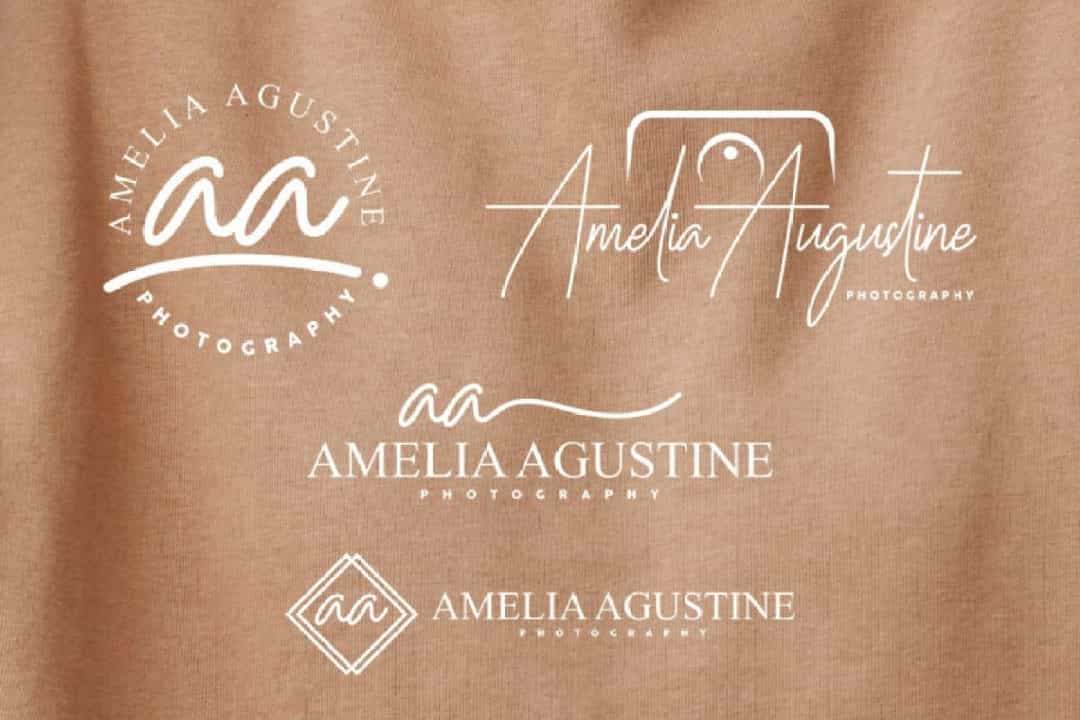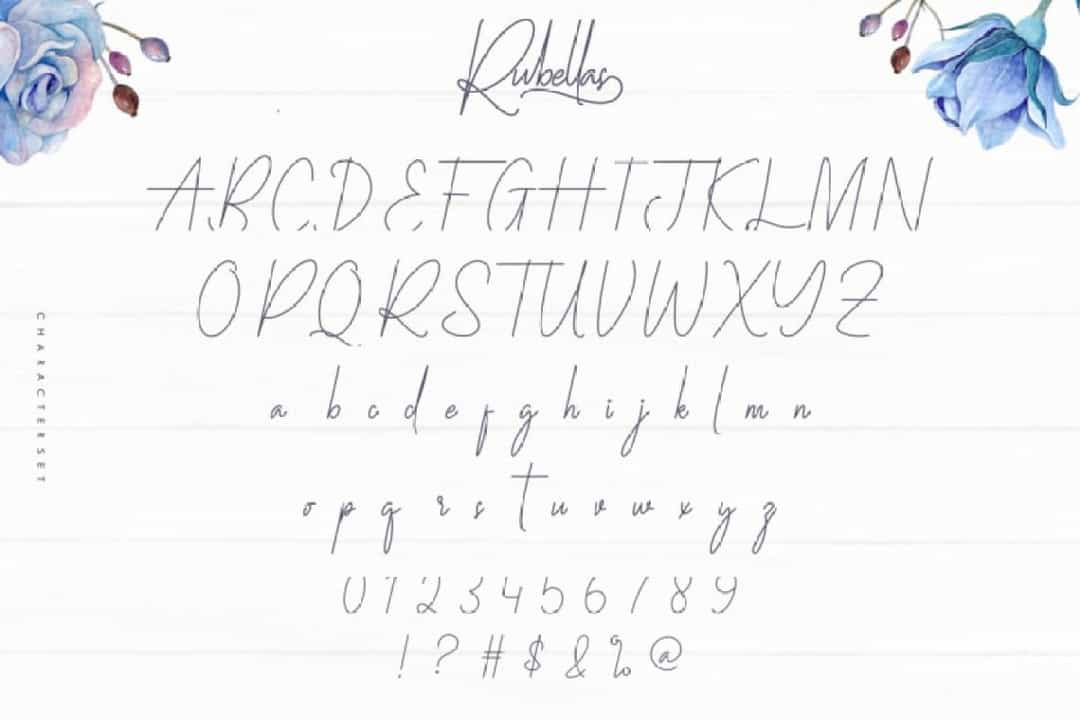
Discover Rubellas Font, part of the Handwritten Script Personal collection—a versatile and unique font perfect for adding a personal touch to your projects. Download it for free and enjoy crafting designs with style, from invitations to social media posts. This font is available exclusively for personal use, giving you the freedom to create without limits. Unlock your creativity with Rubellas Font today!
Rubellas Font is a uniqueness of handwritten style font. Ideal for weddings, promotions, and events, branding, advertising, shopping magazines, and signage, applications as well as invitations, stationery, social media posts, packaging designs, labels, photo watermark, and any project that requires a handwritten appearance!